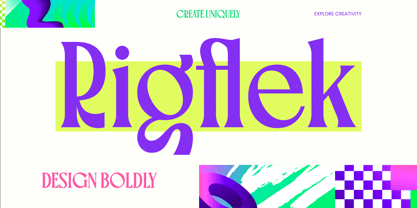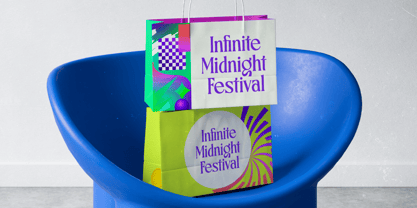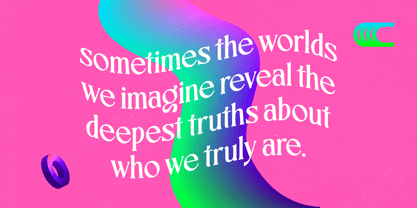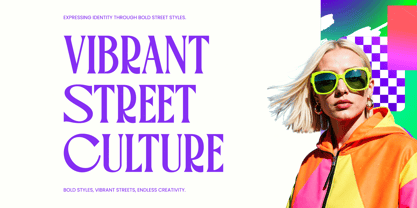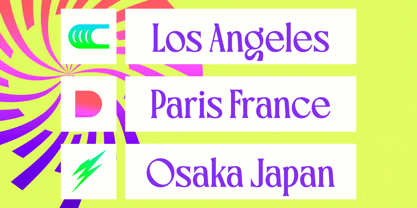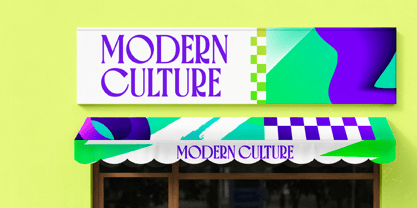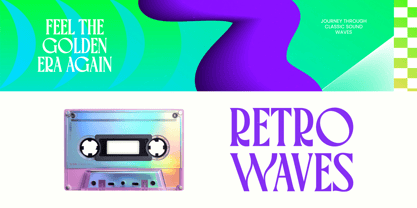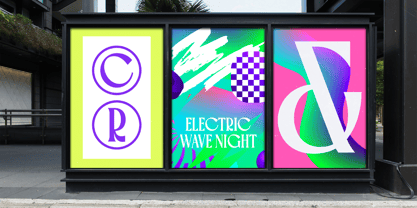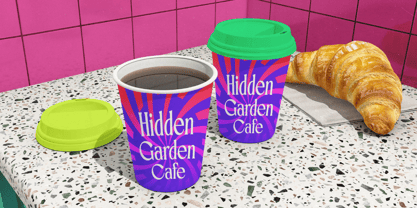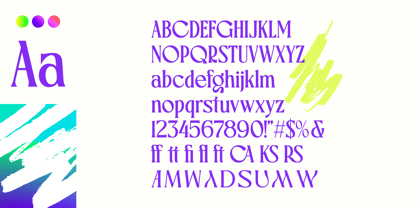
Rigflek
The Rigflek Font Family was designed by Heru Utama Putra and published by Timelesstype Studio. Rigflek contains 2 styles and family package options. More about this family
Experience the intersection of bold geometry and fluid elegance with Rigflek. It is a typeface designed to command attention and transform every layout into a masterpiece of contemporary art.
Inspired by the vibrant energy of neo-psychedelic aesthetics and the precision of classic high-fashion lettering, this font bridges the gap between structured serif traditions and experimental distortion. Its soul lies in the balance of sharp edges and unexpected curves that reflect a world of imagination and deep truth.
This modern serif display exudes an air of sophisticated rebellion, offering a luxury typography experience that refuses to blend into the background. The high-contrast serif strokes provide a rhythmic flow, making it an essential editorial font for designers seeking maximum branding impact with every character.